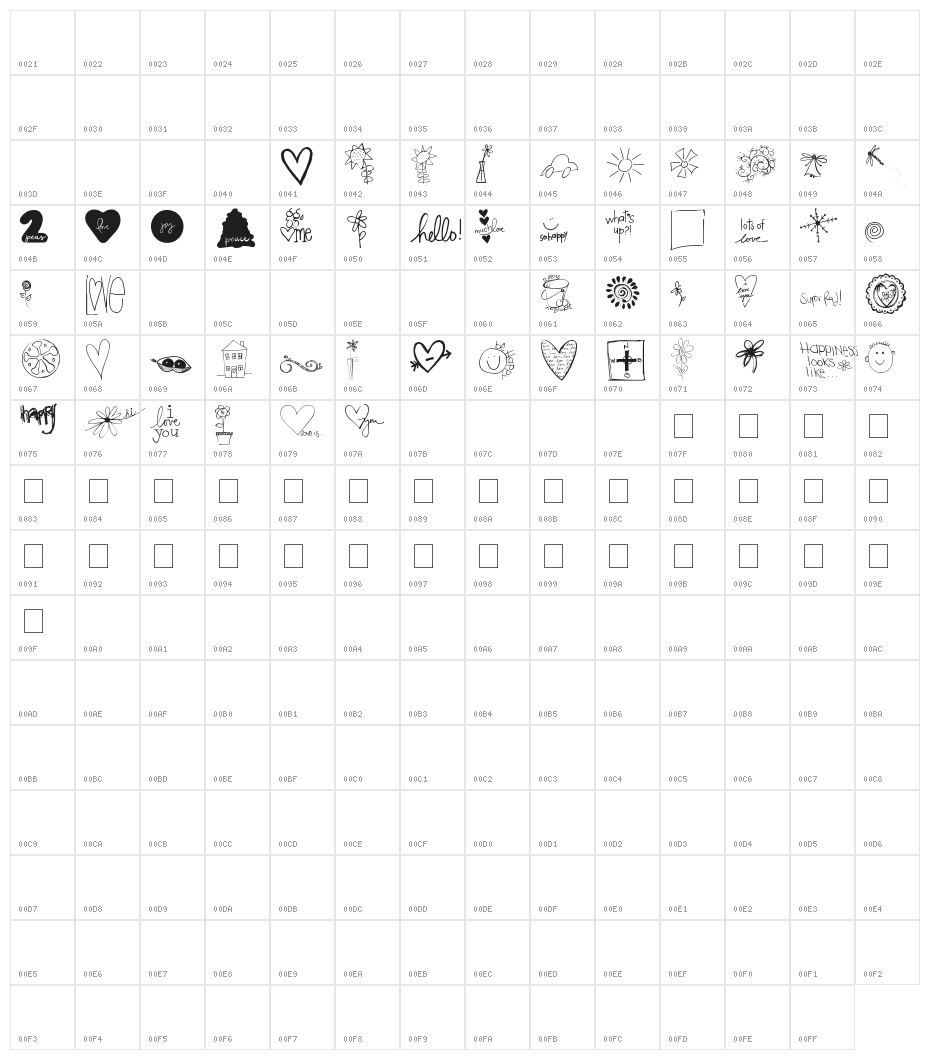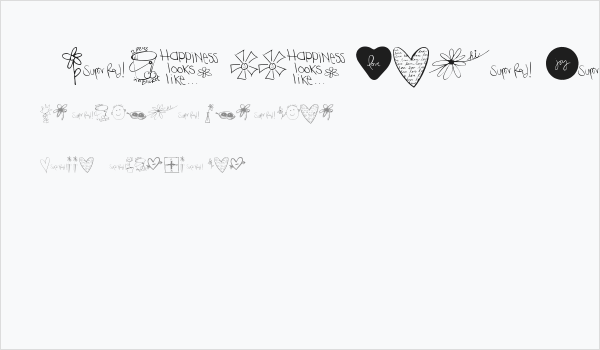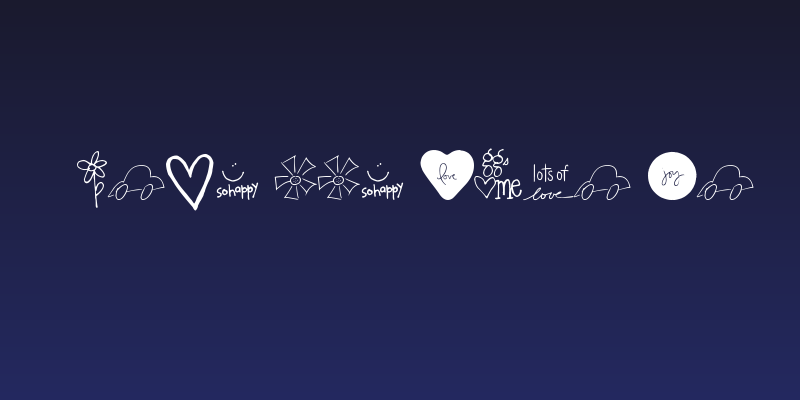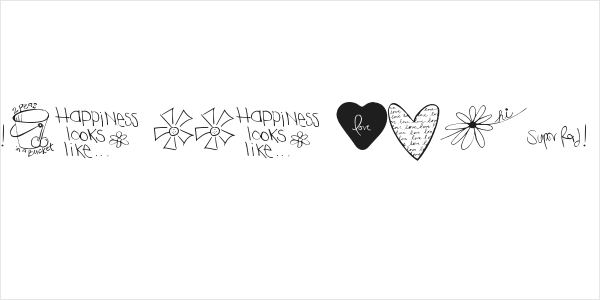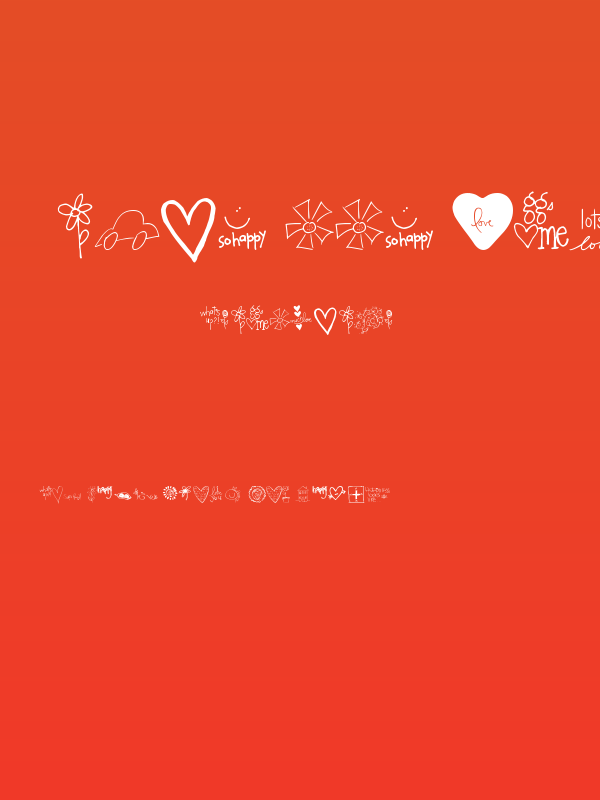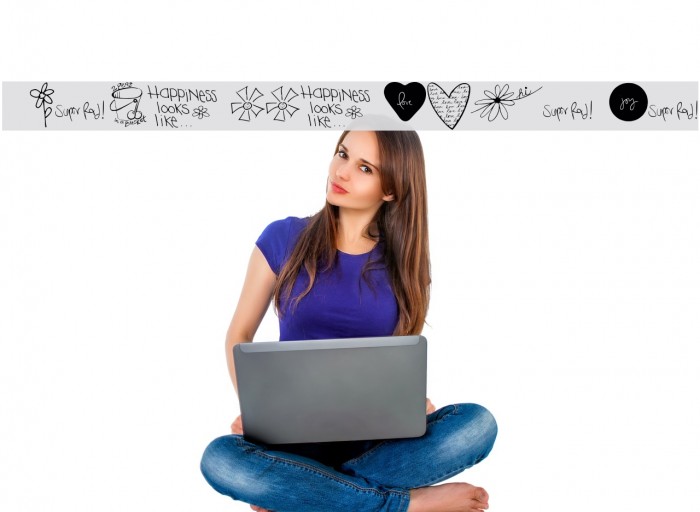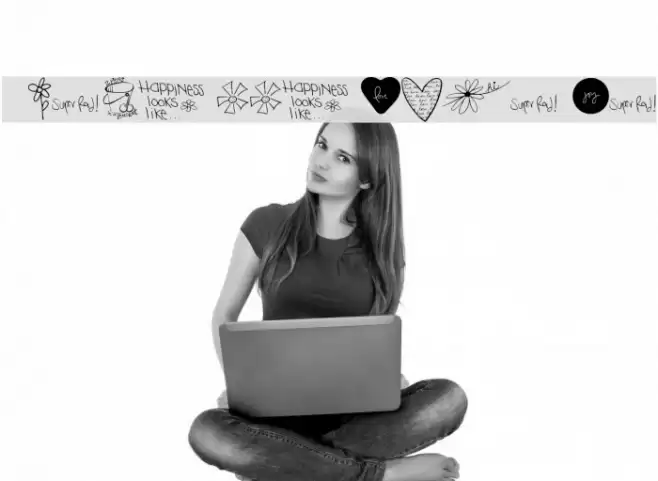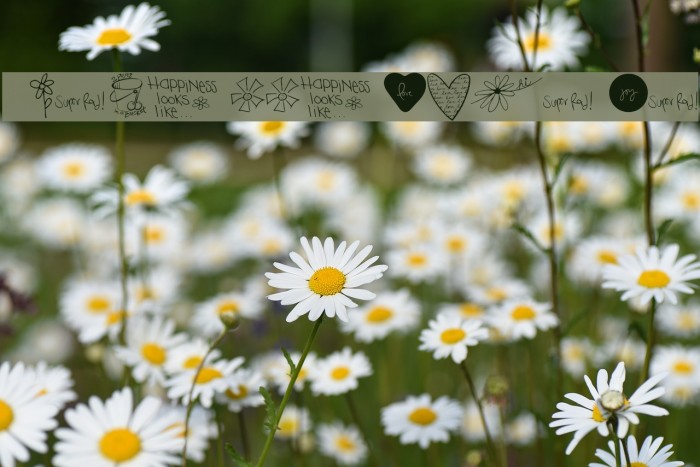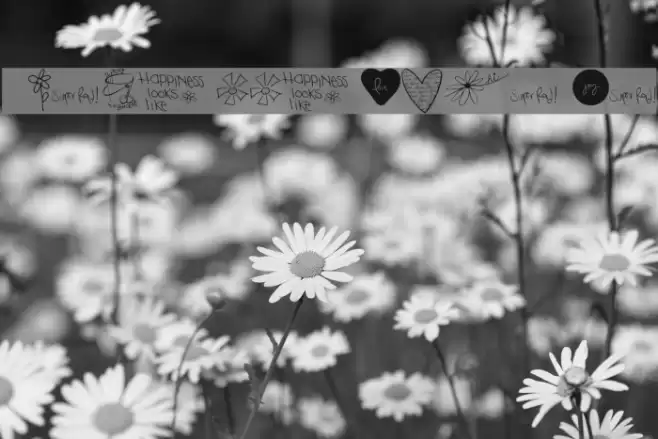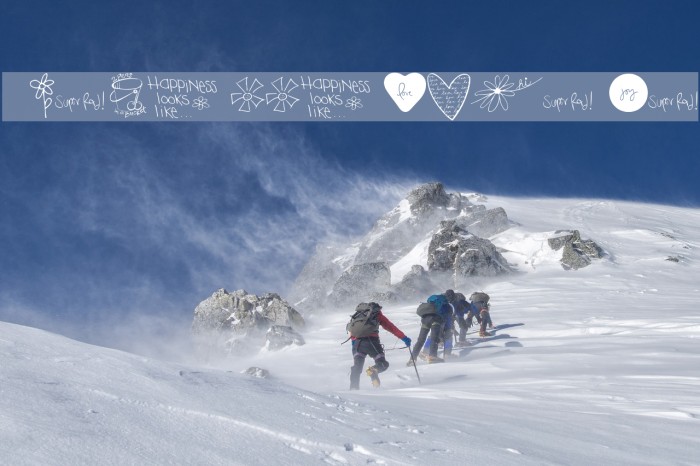
2Peas GGs Love Me Font
2Peas GGs Love Me Description
This collection features a playful and whimsical assortment of doodles and handwritten elements. The designs include hearts, flowers, suns, and various playful motifs, each with a unique and quirky style. The elements are hand-drawn, giving them a personal and informal feel. The use of simple lines and shapes creates a lighthearted and fun aesthetic, perfect for projects that aim to convey joy and creativity. The variety of designs allows for versatile use, from greeting cards to scrapbooking and other creative endeavors. The overall style is casual and artistic, appealing to those who enjoy a touch of whimsy in their design work.
| Overall Style | Whimsical, Playful, Artistic |
| Use Case | Decorative elements, Creative projects |
| Proposed Projects | Ideal for greeting cards, scrapbooking, personal stationery, and creative projects that require a fun and informal touch. |